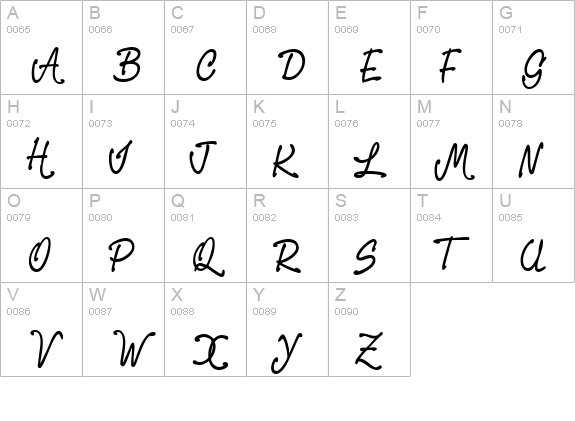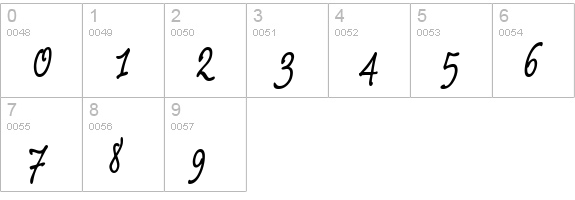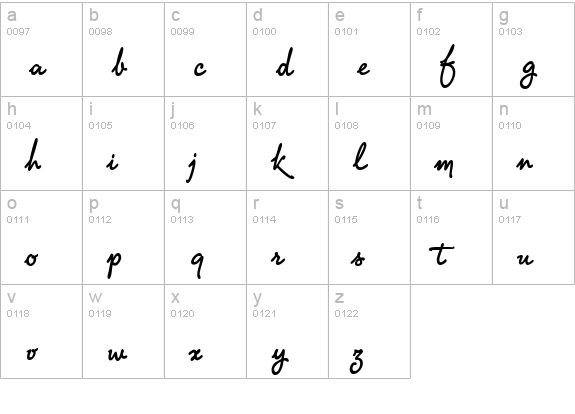
GarridoUT Font Details
GarridoUT is a stunning and versatile font that exudes elegance and sophistication. With its clean lines and modern aesthetic, this font is perfect for a wide range of design projects, from branding to editorial design. The sleek and stylish letterforms of GarridoUT are sure to captivate and engage your audience. The best part? GarridoUT is available for free download at FontsMarket.com. This means you can easily access this beautiful font and enhance your designs without any cost. Whether you're a seasoned designer or just starting out, GarridoUT is a must-have addition to your font collection. Experience the beauty and versatility of GarridoUT today by downloading it for free at FontsMarket.com. Elevate your designs and make a lasting impression with this stunning font.